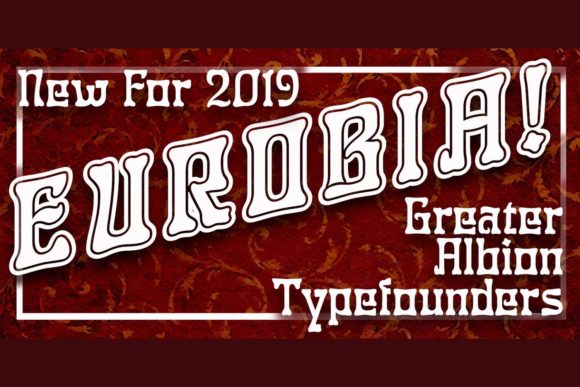
Eurobia Font: A Font That Sparks Exuberance in Every Design!
Get ready to unleash your creativity and leave an unforgettable impression with Eurobia, the display font that's bursting with personality! This font is not just a collection of letters; it's a gateway to a world of boundless imagination, waiting to be unveiled through your artistic vision.
Eurobia's playful, chunky design is a breath of fresh air, bringing a touch of youthful exuberance to your designs. Each letter is meticulously crafted to radiate an aura of cheerfulness and vibrancy, promising to make your designs come alive with energy.
Express Yourself with a Splash of Whimsy:
With Eurobia by your side, let your designs take center stage, exuding a sense of lightheartedness and charm. Its unique letterforms are meticulously designed to capture the essence of playfulness, making it the perfect choice for adding a touch of whimsy to your projects. Whether you're creating eye-catching posters, playful social media graphics, or dynamic branding materials, Eurobia guarantees to make a statement.
Embrace the Power of Communication:
Eurobia is not merely a font; it's a powerful tool that empowers you to communicate your message with clarity and impact. Its legible and distinctive letterforms ensure that your words are delivered with precision, leaving a lasting impression on your audience. Whether you're crafting a captivating presentation, designing an informative website, or creating engaging marketing materials, Eurobia amplifies your message, ensuring it resonates with your audience.
Elevate Your Designs to New Heights:
With Eurobia as your creative companion, you can effortlessly elevate your designs, taking them from ordinary to extraordinary. Its captivating letterforms add a touch of visual intrigue, captivating your audience and leaving them spellbound. Whether you're a seasoned designer seeking to infuse your work with a fresh perspective or a novice just starting your creative journey, Eurobia is the key to unlocking your design potential, helping you create masterpieces that leave a lasting impact.